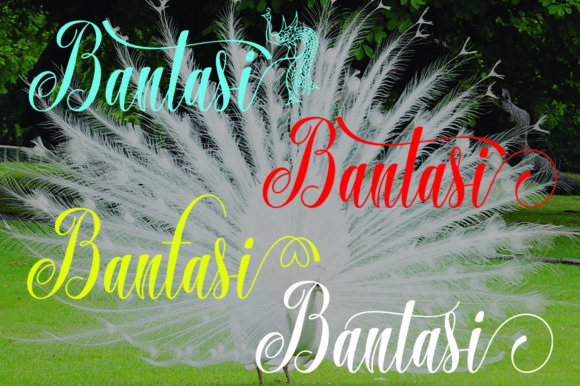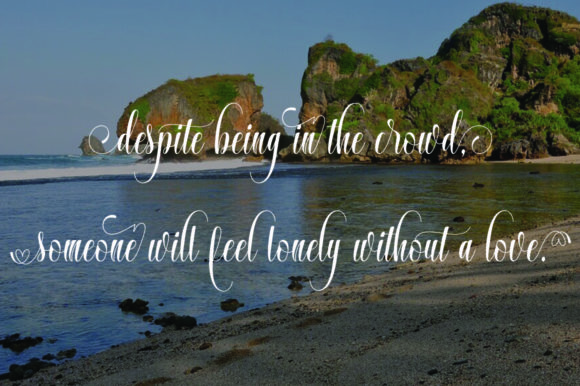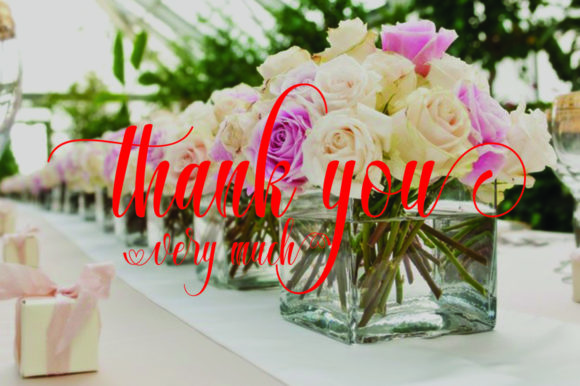
The Bantasi Font: A Stunning Script with Amazing Swashes!
With its stunning script letters and amazing swashes, Bantasi instantly elevated my design game. The font’s unique blend of classic and modern elements made it perfect for my client’s high-end wedding brand. In this article, I’ll share my honest review of Bantasi, provide a practical guide on how to use it, and explore similar fonts that you might enjoy.
- 💫 Stunning script letters with beautiful swashes and flourishes
- 🎨 Versatile and adaptable for various design projects, from branding to invitations
- 👍 Excellent for creating eye-catching headlines and titles
Small Quirks and Limitations 🤔
- ⚠️ Some swashes might not work well with certain letter combinations – experiment with different settings to find the perfect fit
- 🤔 Limited availability of condensed or italic versions, but the regular style is incredibly versatile
The Story Behind Bantasi: Designer Inspiration
Bantasi’s creator was inspired by traditional calligraphy and hand-lettering techniques. The font’s unique blend of classic and modern elements reflects the designer’s passion for experimentation and innovation. While the true story behind Bantasi’s creation might be unknown, its impact on the design community is undeniable.
| Author | nasristudio |
Q: What makes Bantasi so special?
A: Bantasi’s stunning script letters and amazing swashes make it perfect for creating eye-catching headlines and titles.
Q: Can I use Bantasi for body text?
A: While Bantasi is highly legible, its script style might not be ideal for long-form body text. Use it for headlines, titles, and short paragraphs for maximum impact.